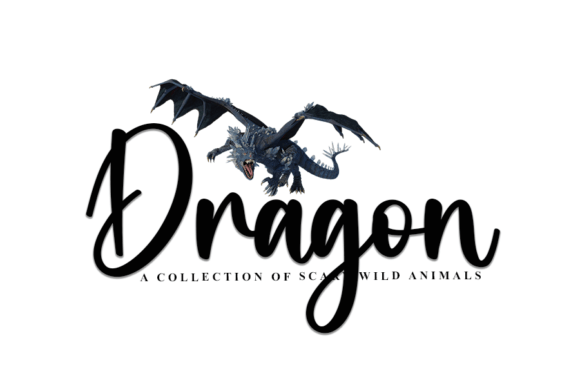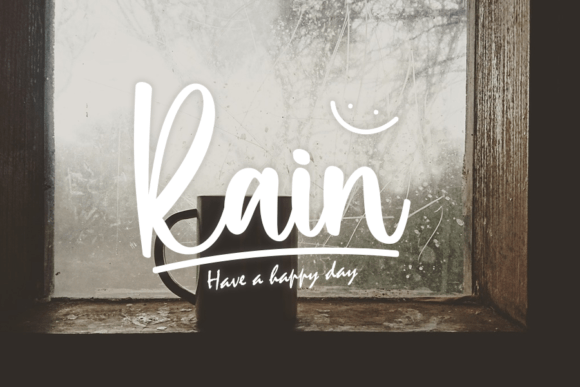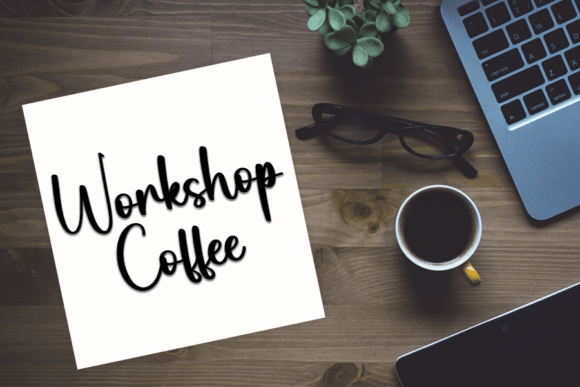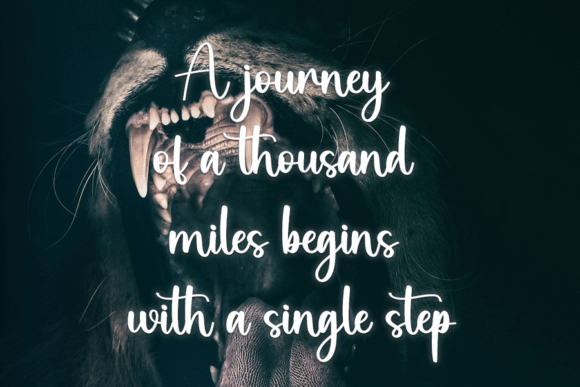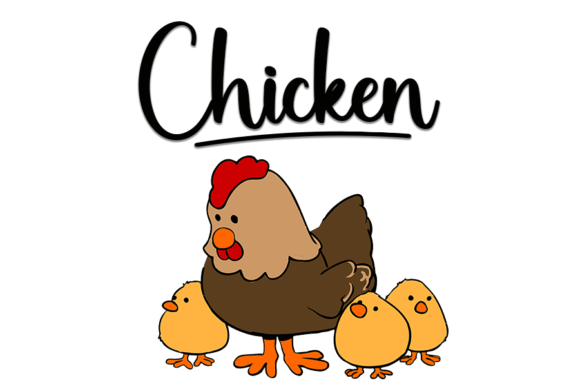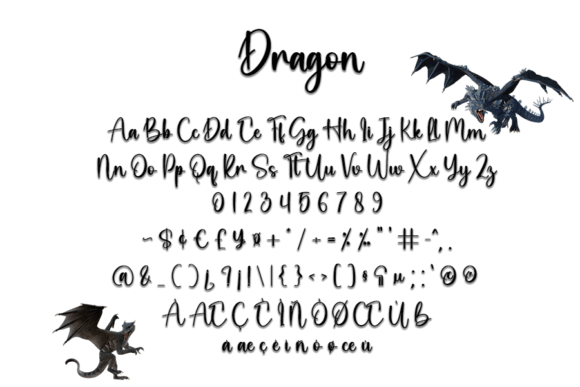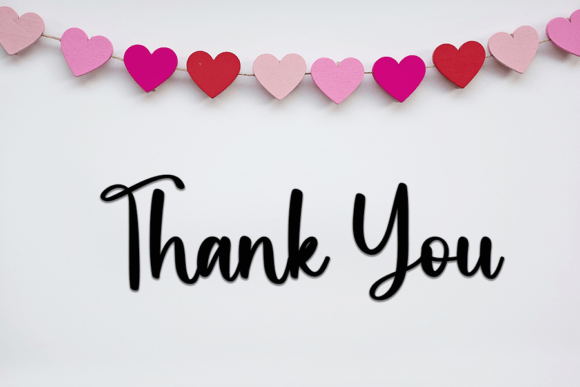
Dragon Font
About Dragon Font
Dragon is a bold and beautiful script font. Whether you’re using it for crafts, digital design, presentations, or creating greeting cards, this font has the potential to become your favorite font, whatever the occasion.